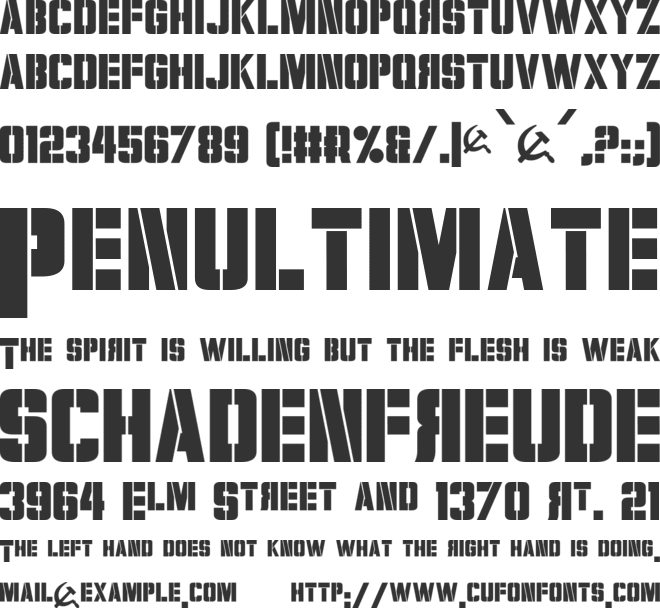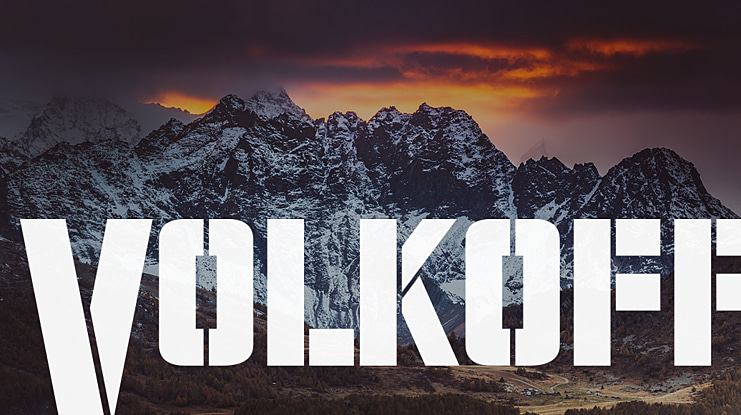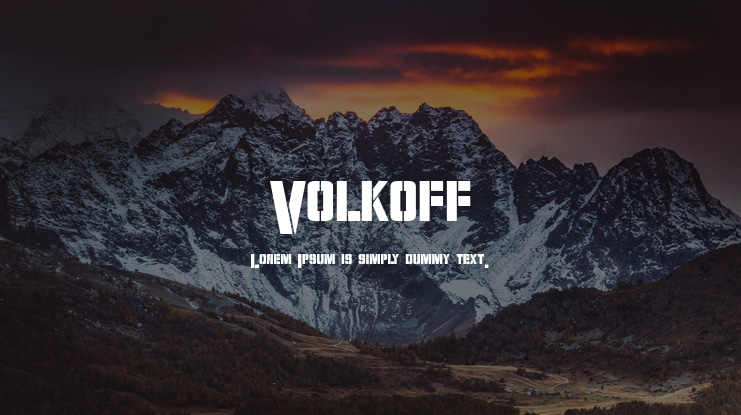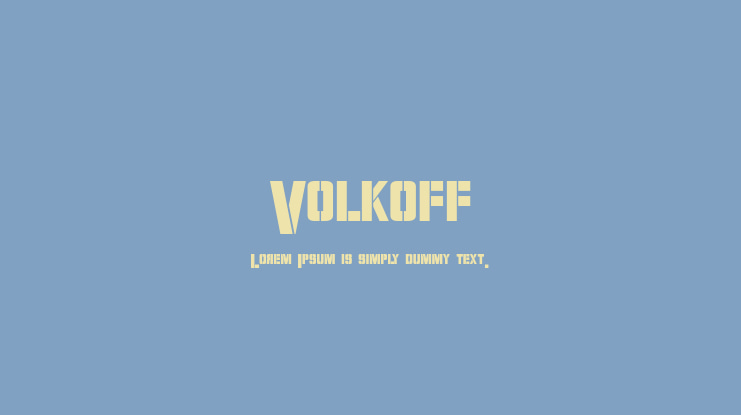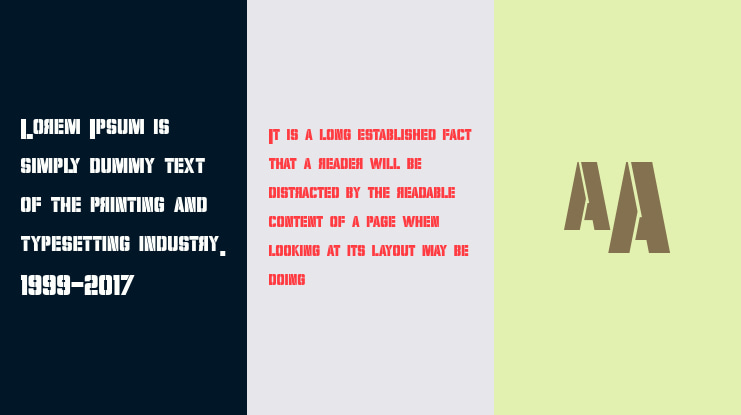
Volkoff Font Family
Neale Davidson
Volkoff is a stylized military-stencil typeface given upper-caps and a minor 'Soviet-Era' Russian flare with some glyphs (such as the backwards 'R'.) Includes full alphanumerics, extended punctuation, Euro. Includes regular and italic weights.